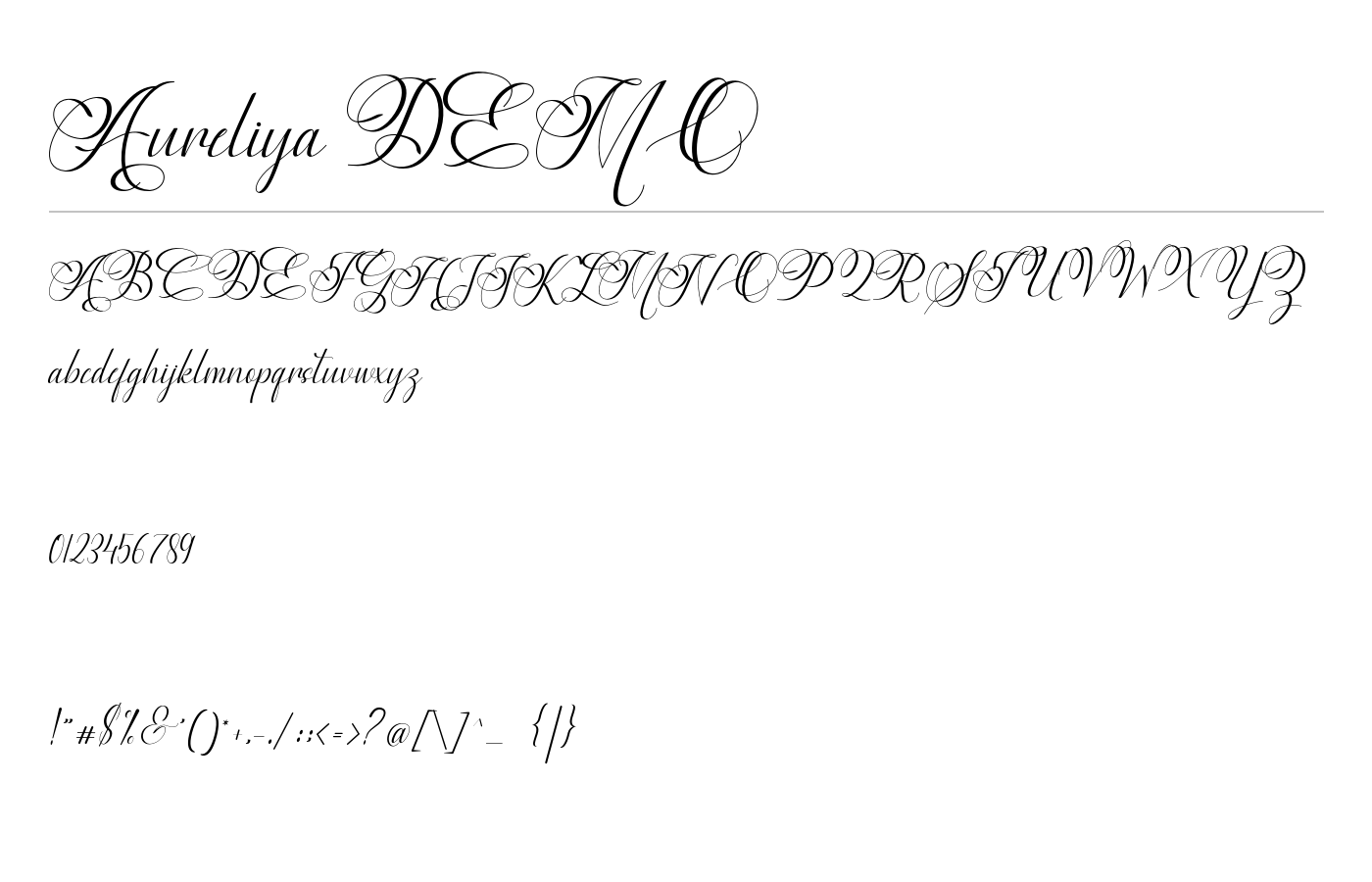
Aureliya DEMO is an elegant script font with delicate, flowing strokes and ornate swashes that give it a refined, sophisticated feel. Its thin weight and high contrast between fine lines create a graceful, classic style perfect for luxury branding, wedding invitations, and upscale editorial design. This font works best in decorative headlines or logos where a sense of elegance and formality is desired.